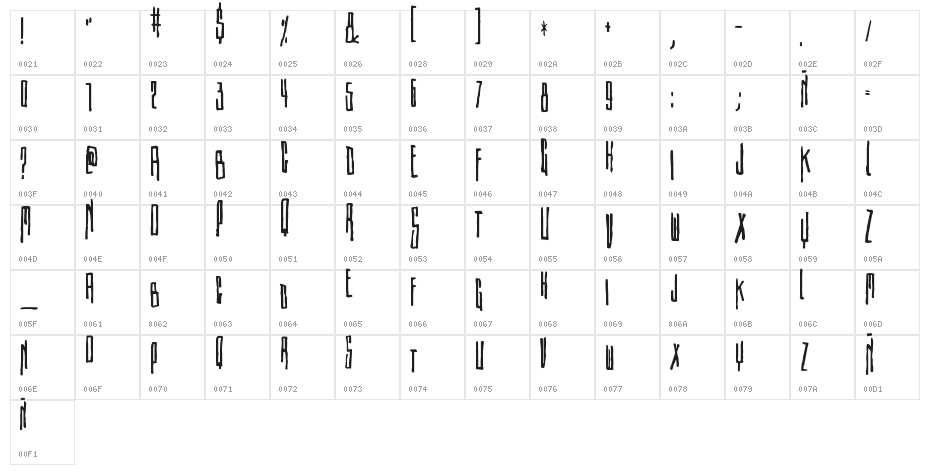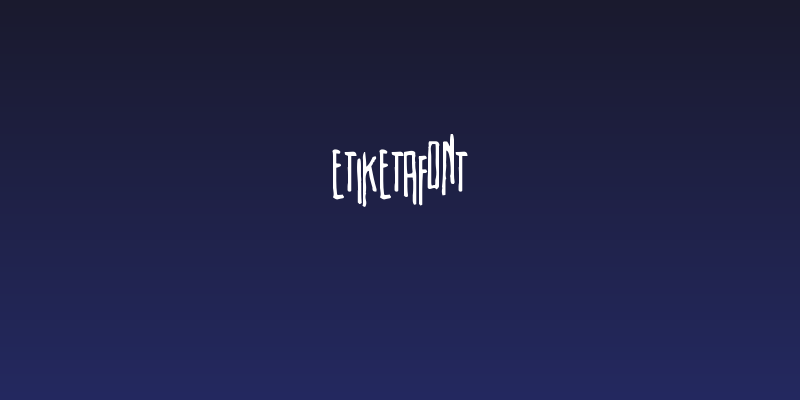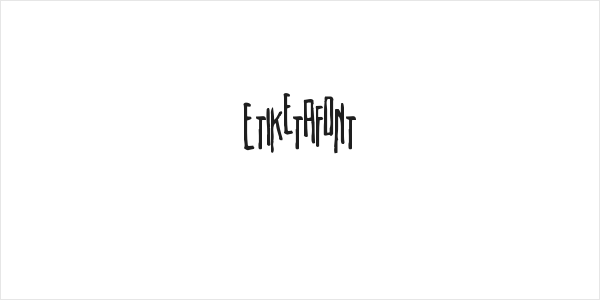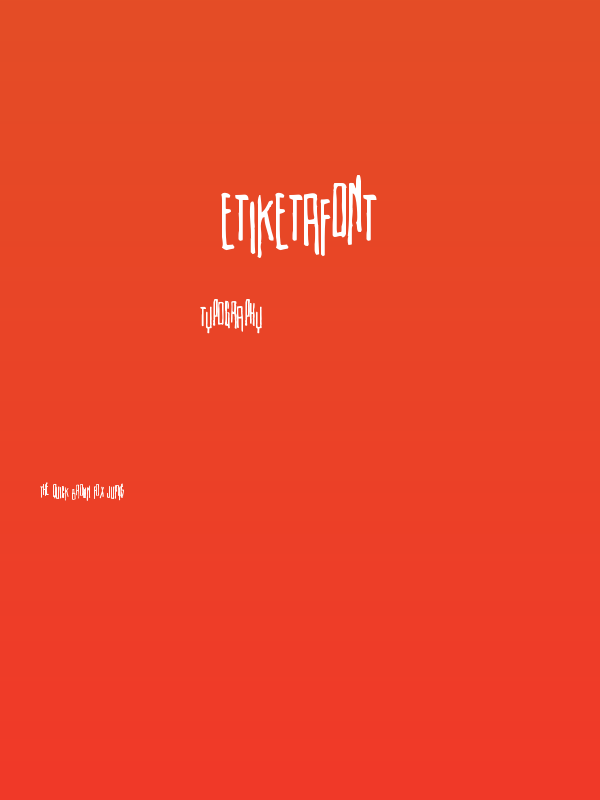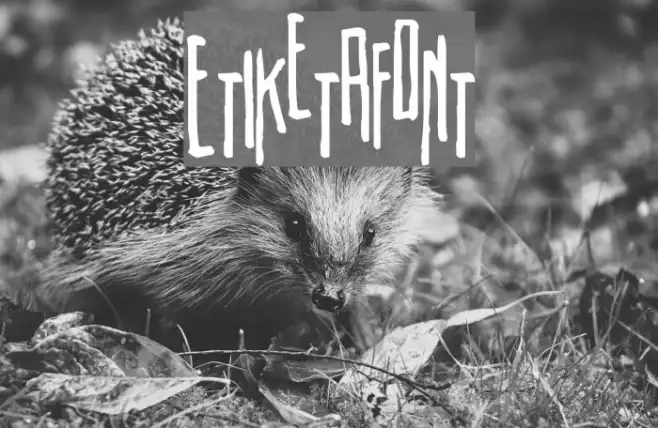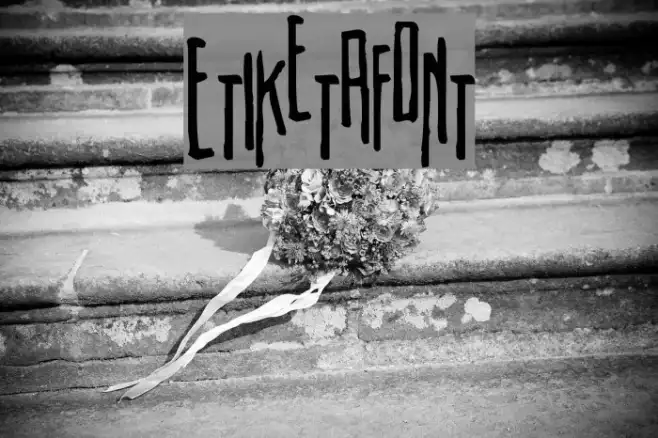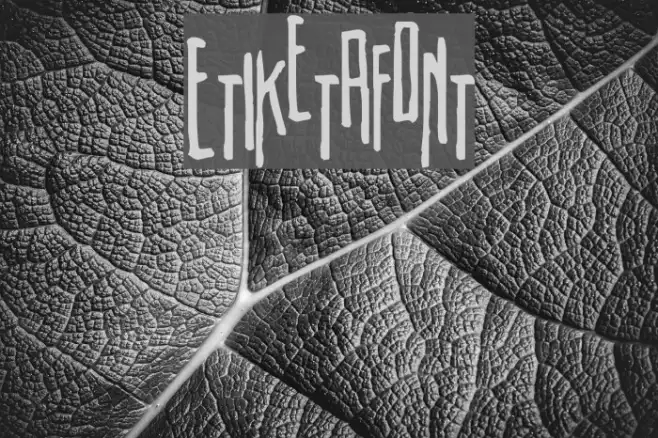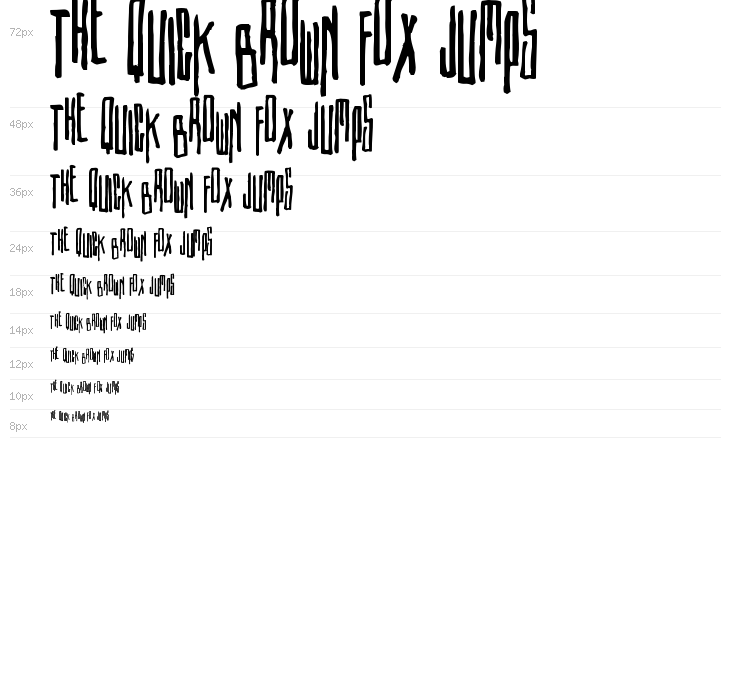
Etiketafont Font
Etiketafont Description
This font features a unique, hand-drawn style with elongated and irregular letterforms. The characters have a rough, organic appearance, giving them a distinctive and artistic look. The uppercase and lowercase letters maintain a consistent height, contributing to a cohesive yet unconventional aesthetic. The numerals and special characters follow the same design principles, ensuring uniformity across all glyphs. The overall effect is one of spontaneity and creativity, making it ideal for projects that require a personal touch or an edgy, artistic vibe.
| Use Case | Logos, Posters, Artistic projects |
| Proposed Projects | Ideal for artistic projects, album covers, posters, and creative branding. |